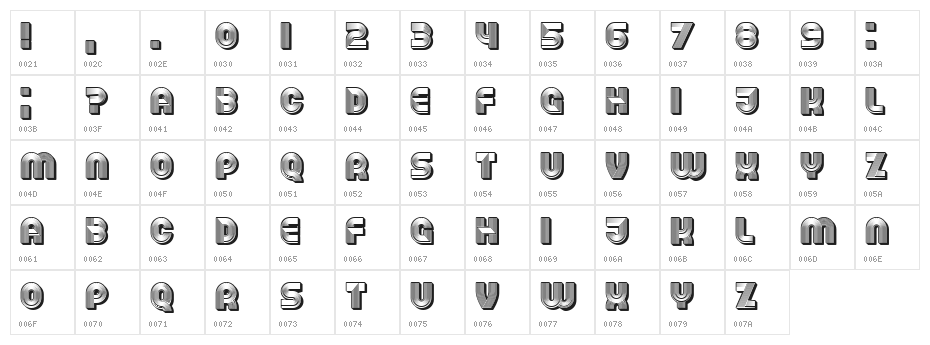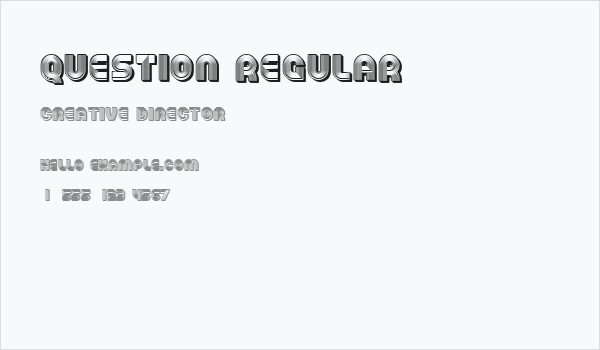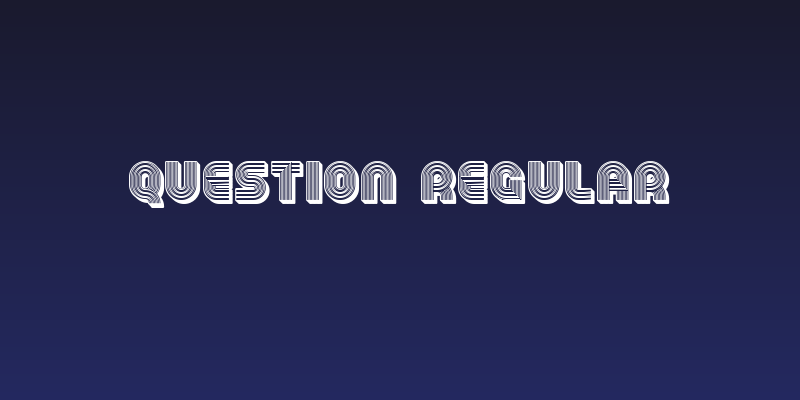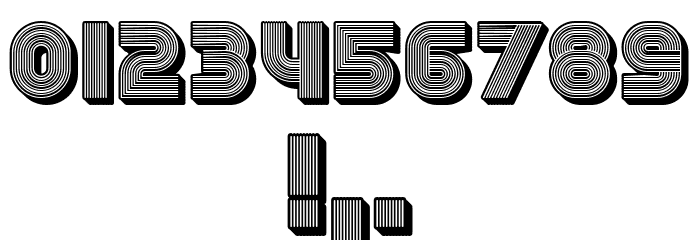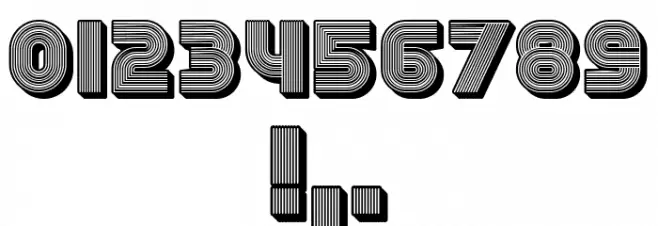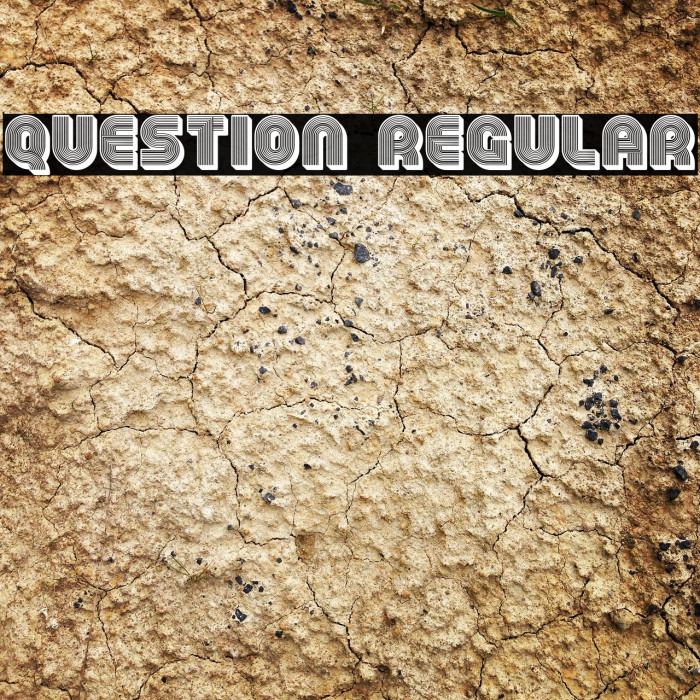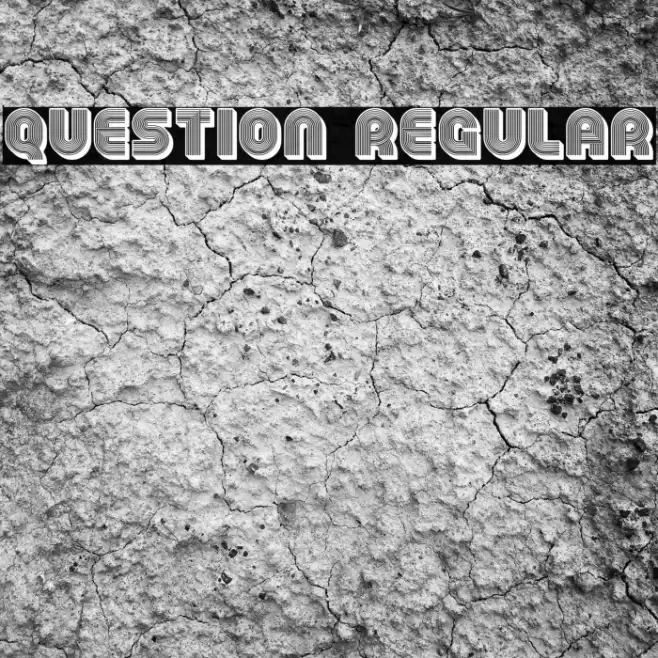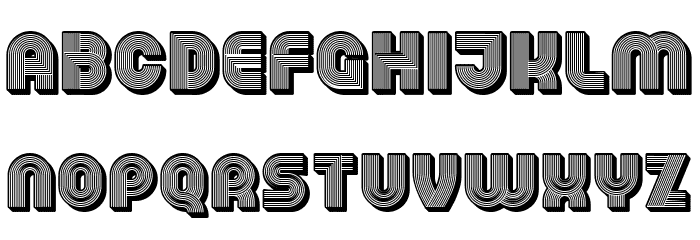
Question Regular Font
| Projets proposés | Ideal for poster designs, branding projects, and any creative work that requires a bold statement. It can also be used for headlines in magazines or websites that aim to capture attention. |